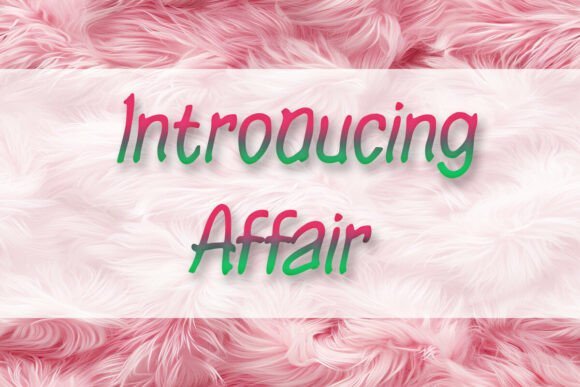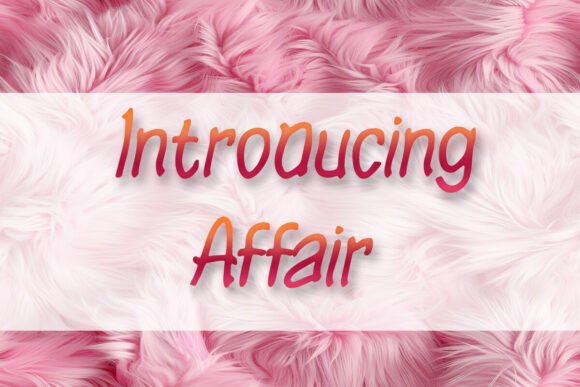
The Perfect Font for the Perfect Moment
Have you ever been working on a creative project, pouring your heart and soul into it, only to realize that the right font can make all the difference? That’s exactly what happened to many designers when they stumbled upon the Affair Font, a game-changing font that elevates any project to new heights.
Designed to be versatile and stylish, the Affair Font is more than just a font – it’s a tool that helps you bring your vision to life. Whether you’re creating branding initiatives, magazine layouts, or social media graphics, this font is sure to make a lasting impression. Its seamless blend of style and impact makes it a favorite amongst creators, and for good reason – it’s the perfect way to add some flair to your projects and make them truly unforgettable.
Affair Font Key Features
- Font Family: Affair is a sans-serif font family designed for modern and elegant typography. It’s suitable for various applications, including body text, headlines, and titles.
- Unique Characteristics: Affair Font features a distinctive x-height, making it highly legible in various font sizes. Its carefully crafted letterforms ensure a smooth and harmonious reading experience.
- Kerning and Ligatures: Affair Font includes advanced kerning and ligature pairs, which enhance the overall typographic quality and readability of text.
- Font Weight and Style: Affair Font is available in multiple weights (Light, Regular, Medium, Bold, Black) and styles (Italic, Oblique), providing designers with a wide range of creative possibilities.
Designer Review: Affair Font
Overall, I’d say Affair Font is a solid choice for designers looking for a romantic, elegant feel. It’s perfect for wedding invitations, love letters, or any project that requires a touch of whimsy.
- ✨ The flowing script and cursive letters create a beautiful, handwritten feel.
- ✨ The font is highly customizable, allowing you to adjust the spacing, weight, and style to suit your project’s needs.
- ✨ The font is available in a range of weights and styles, from light and delicate to bold and dramatic.
- ⚠️ The font may not be the best choice for projects that require a more modern or edgy feel.
- ⚠️ Some of the letters may be difficult to read, particularly at smaller font sizes.
- ⚠️ The font may not be suitable for projects that require a lot of text, as it can be quite decorative and may be difficult to read in large quantities.
In conclusion, Affair Font is a lovely choice for designers looking to add a touch of romance and elegance to their projects. While it may have some limitations, its customization options and beautiful script make it a great addition to any designer’s toolkit.
Tips for Getting the Most Out of Affair Font
For a professional look, pair the Affair Font with a clean and minimalist design. Use it sparingly to add emphasis to key text elements. Experiment with different font sizes and colors to create visual interest.
The Affair Font is ideal for romantic invitations, wedding stationery, and other love-themed designs. It’s also suitable for fashion and lifestyle branding, as well as creative marketing materials.
Alternatives to Affair Font for Designers
Affair Font is a beautiful, elegant font, but it may not be suitable for every design project. Here are some alternatives that you can consider:
Great Vibes is a beautiful, handwritten font that is perfect for creating a unique and eye-catching design. It is great for use in headings, titles, and other design elements where you want to add a touch of elegance and sophistication. Compared to Affair Font, Great Vibes has a more playful and casual feel, making it ideal for designs that require a relaxed and friendly tone.